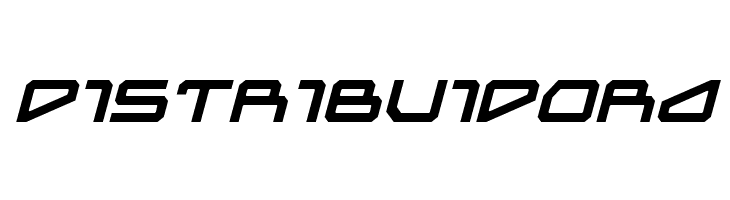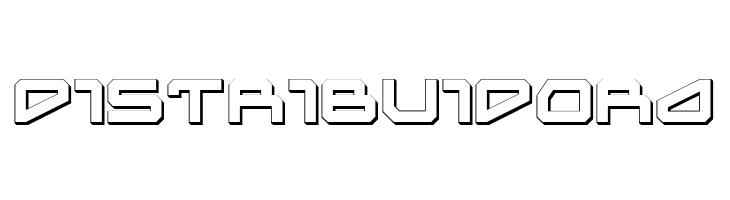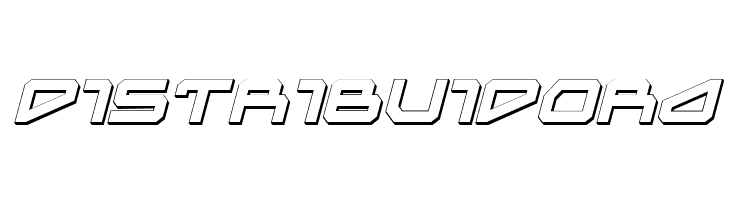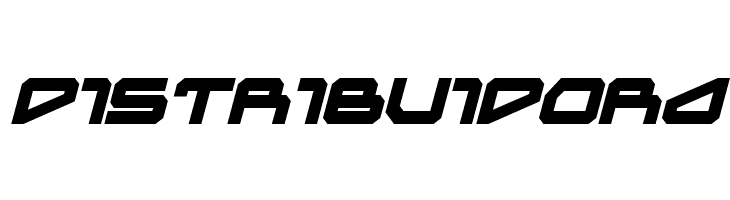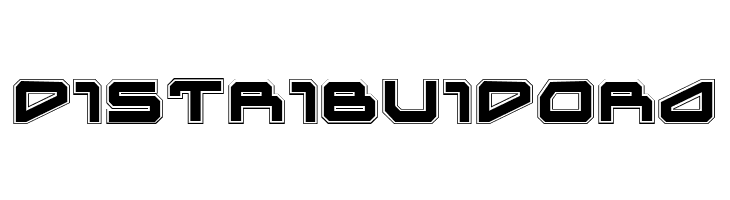
Abstract Style Font
A futuristic, geometric font with sharp angles and a bold, modern style.
A futuristic, angular font with a dynamic, italicized style.
A bold, geometric font with a three-dimensional shadow effect.
A futuristic, geometric font with angular edges and consistent width.
A bold, futuristic font with a shadow effect and angular design.
A bold, italic, futuristic font with geometric shapes and a three-dimensional outline.
A bold, italicized font with a futuristic, angular design.
A bold, geometric font with a futuristic and modern aesthetic.